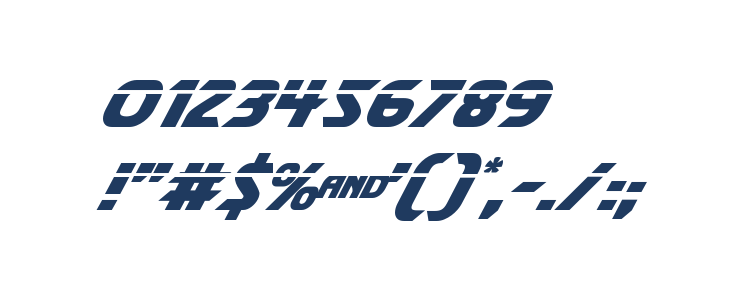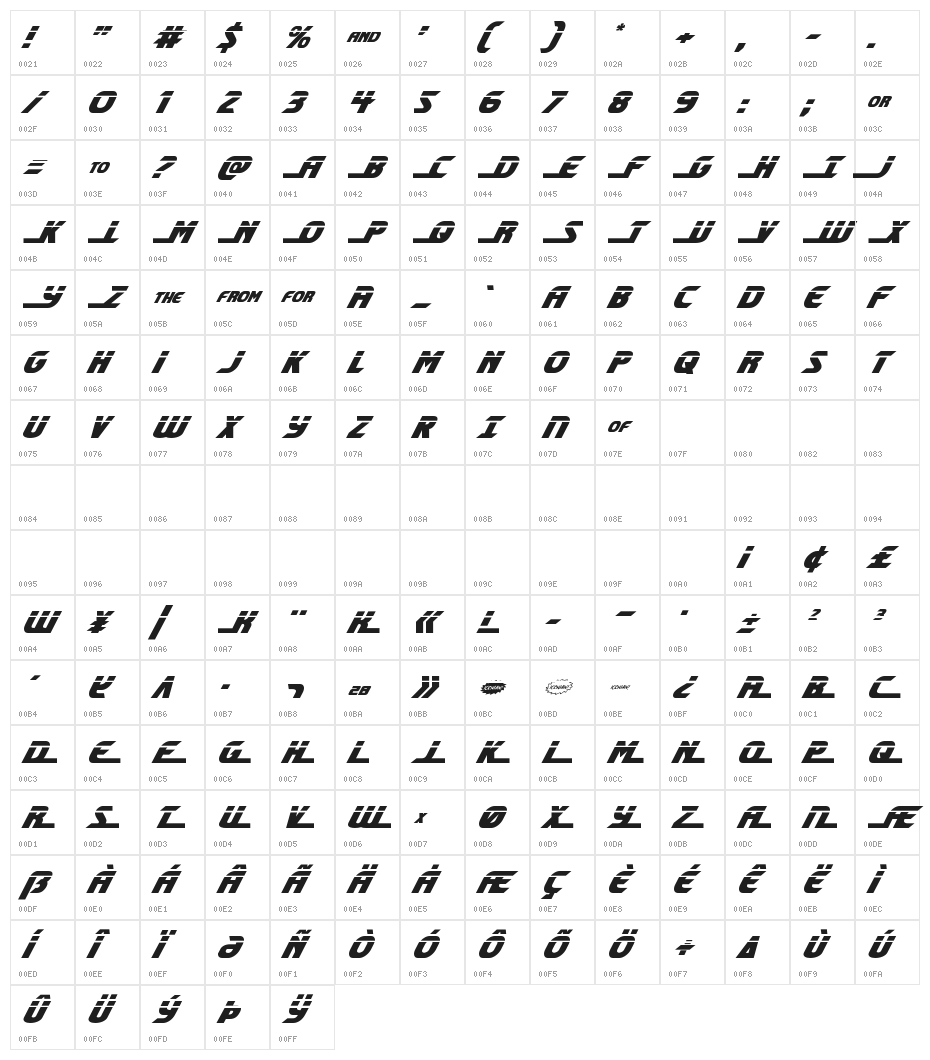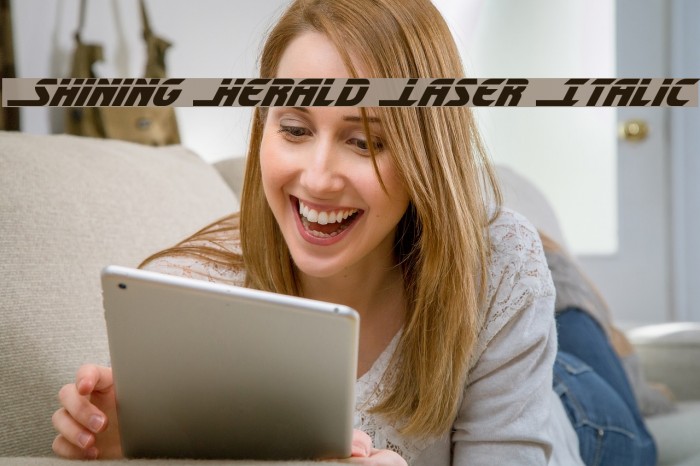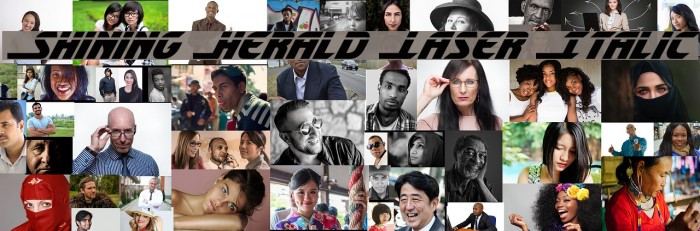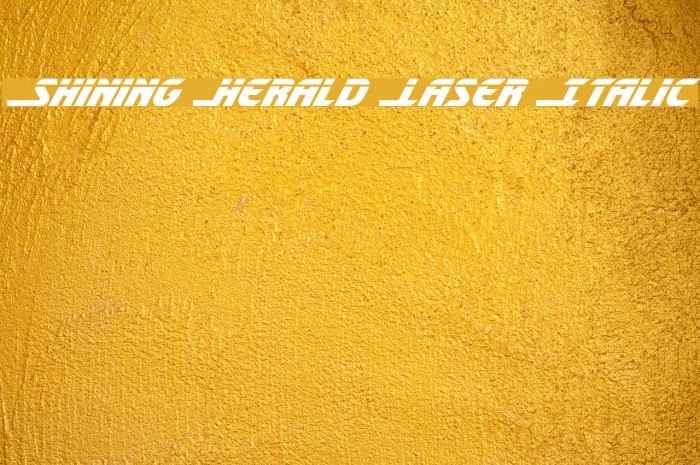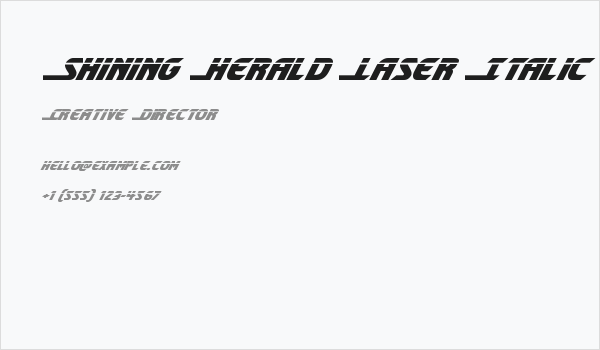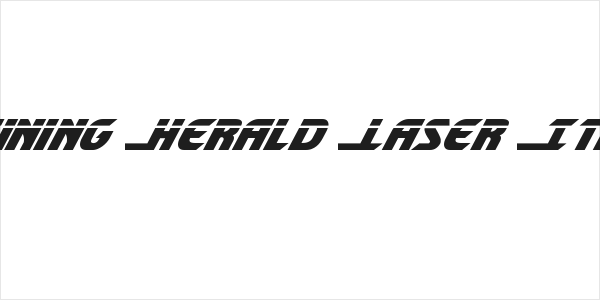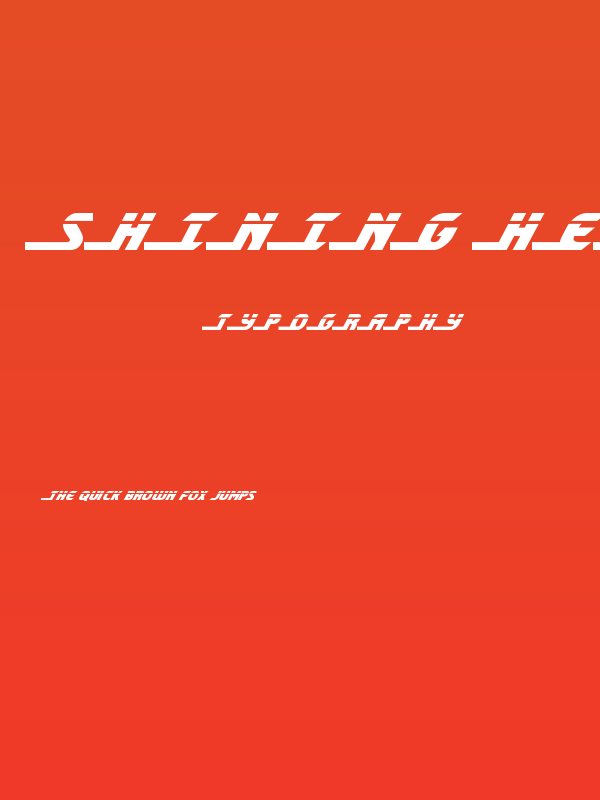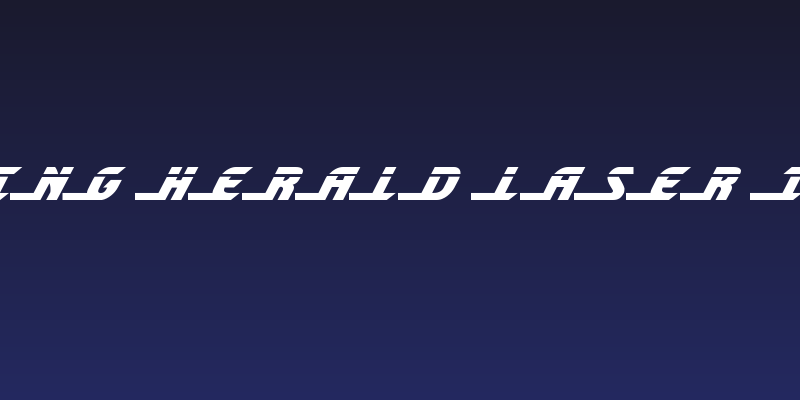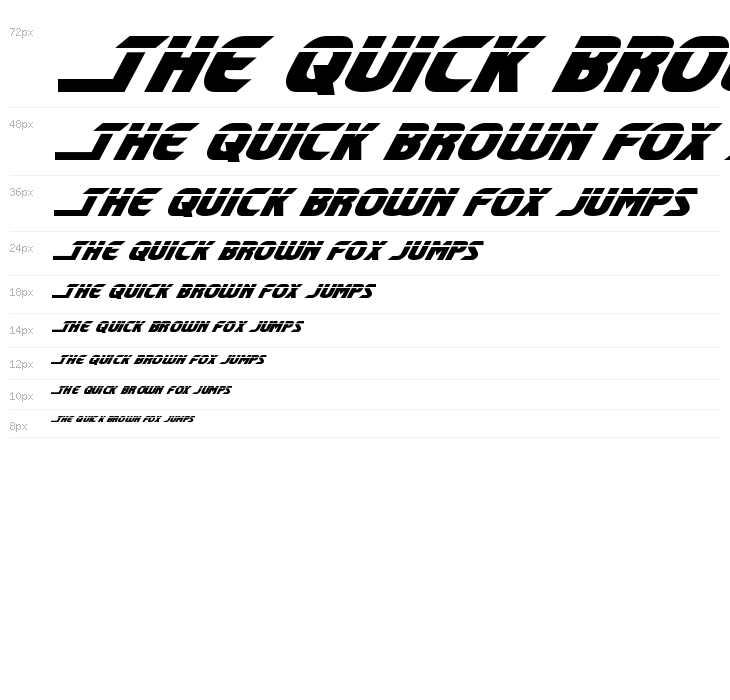
Shining Herald Laser Italic Font
Shining Herald Laser Italic Description
This font features a futuristic and dynamic design with a strong italic slant, giving it a sense of motion and speed. The characters are bold and angular, with sharp edges and a distinct geometric style. The uppercase and lowercase letters maintain a consistent width, contributing to a uniform appearance. The numbers and special characters follow the same aesthetic, ensuring a cohesive look across all elements. The font's unique style makes it stand out, suitable for projects that require a modern and edgy feel.
| Proposed Projects | Ideal for sci-fi themed projects, video game titles, technology branding, and dynamic posters. |